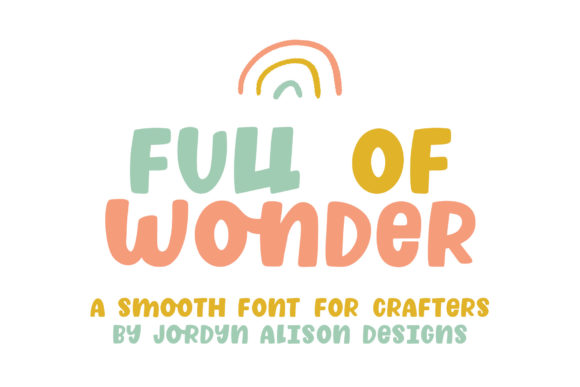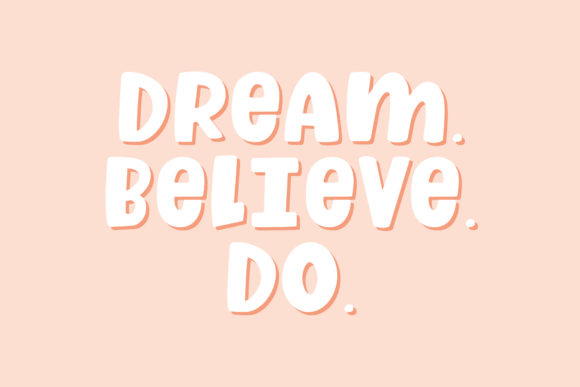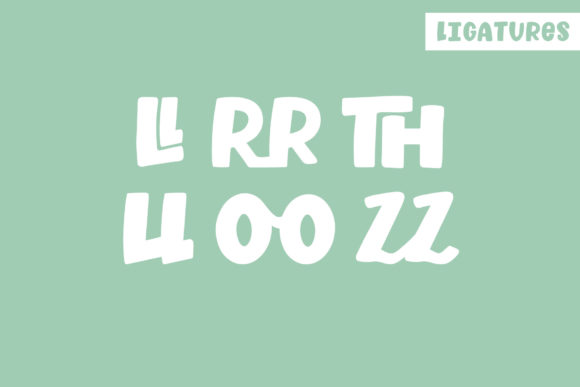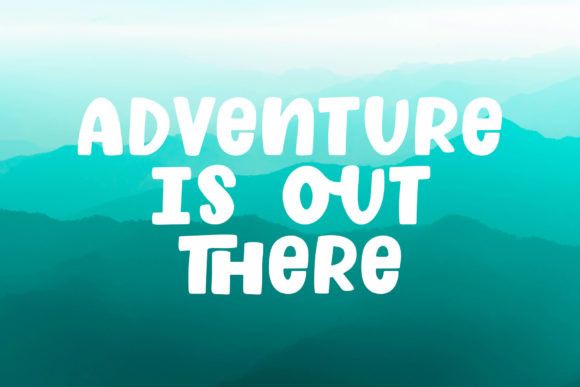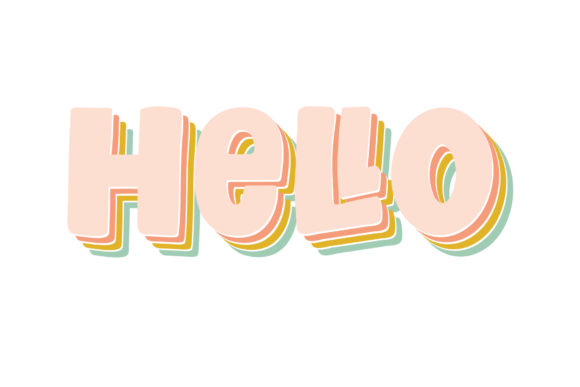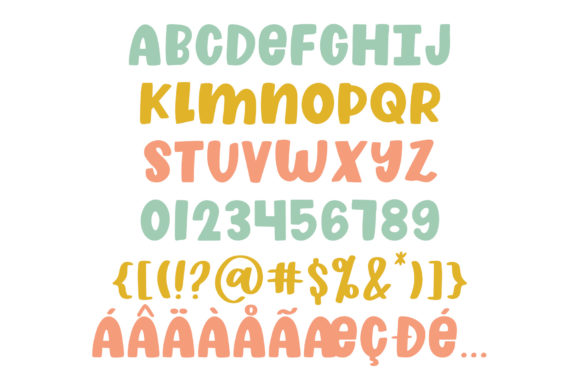
Sans Serif Fonts Full of Wonder Font 0 255 FacebookTwitterPinterestWhatsApp Full of Wonder Font 1 of 6 About Full of Wonder Font Full Of Wonder is a smooth and thick font with a whimsical twist. Fall in love with its playful charm! DOWNLOAD NOW